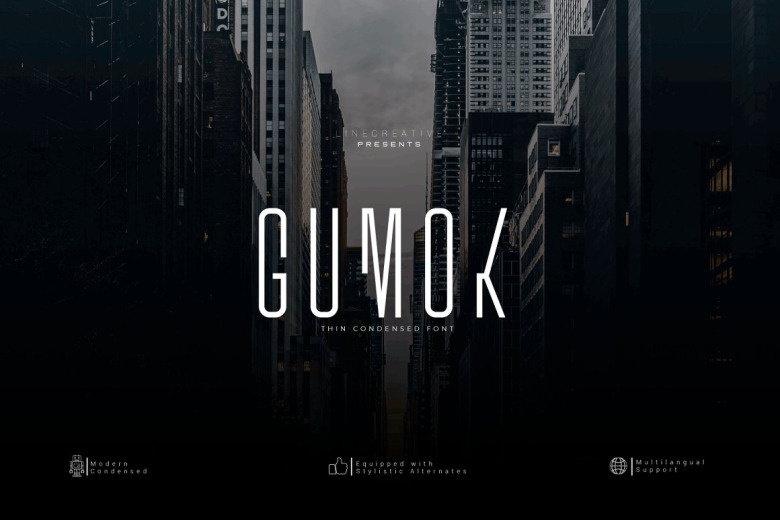
Gumok Font
Gumok – Ultra Condensed sans serif display font and Minimalist Character, It’s Perfect for logo, name card, magazine layout, headers, or oven large scale artwork. Gumok come with clean lines and smooth curves give any project an extra touch of class.
Gumok Display Font